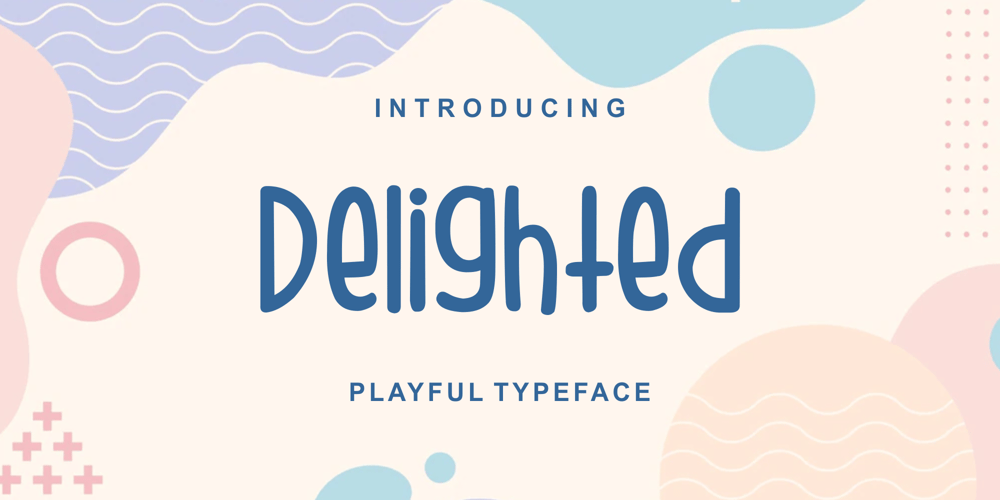
Delighted Font Family was designed by Zamjump and published by Zamjump. Delighted contains 1 styles and family package options. DELIGHTED is an uneven, unpredictable, fun font that makes your projects smile and will inspire you to create something fun and memorable. It is suitable for titles, pamphlets, greeting cards, product packaging, book covers, printed quotes, logotypes, clothing designs, album covers, etc.DELIGHTED will help you create special and touching typographic designs for scandinavian or childish projects, for every day or the happiest day of your life, summer vacations, baby showers, birthday cards, christmas greetings, gifts, even can also be used for t-shirt / hoody design. This is really a universal and modern font. Owner of endless possibilities!Just make the best designs and make your project comfortable, cute, totally hand painted, realistic and natural.The DELIGHTED symbol is very easy to use because it is an alternate from lowcase, only typing the alphabet and adding the underscore ( a_, b_ c) and so on).DELIGHTED font has uppercase, lowercase, alternate ss01 numbers & basic punctuation, multilingual support.